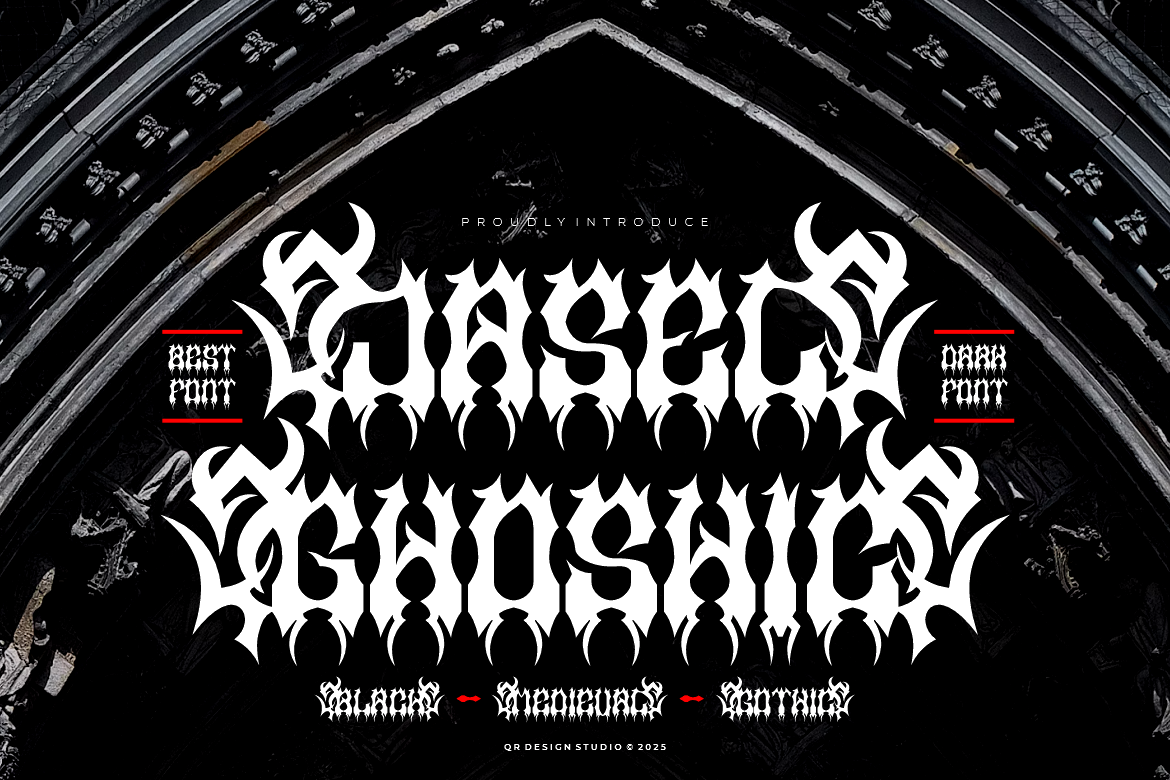
Jasel Ghoshic - Blackletter Font
Jasel Ghoshic Font is a blackletter and authentic display font. The font is suitable for any branding project like poster, logo, sport, and many more. Outstanding in a wide range of contexts.